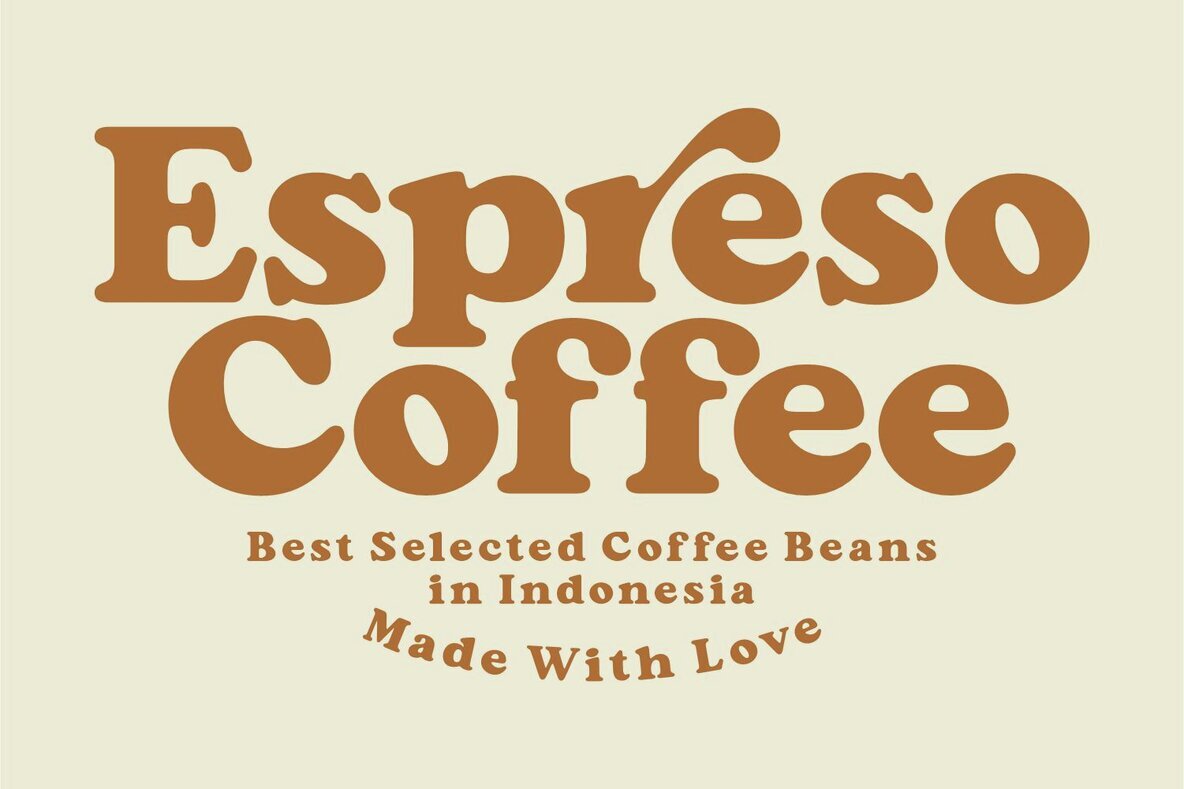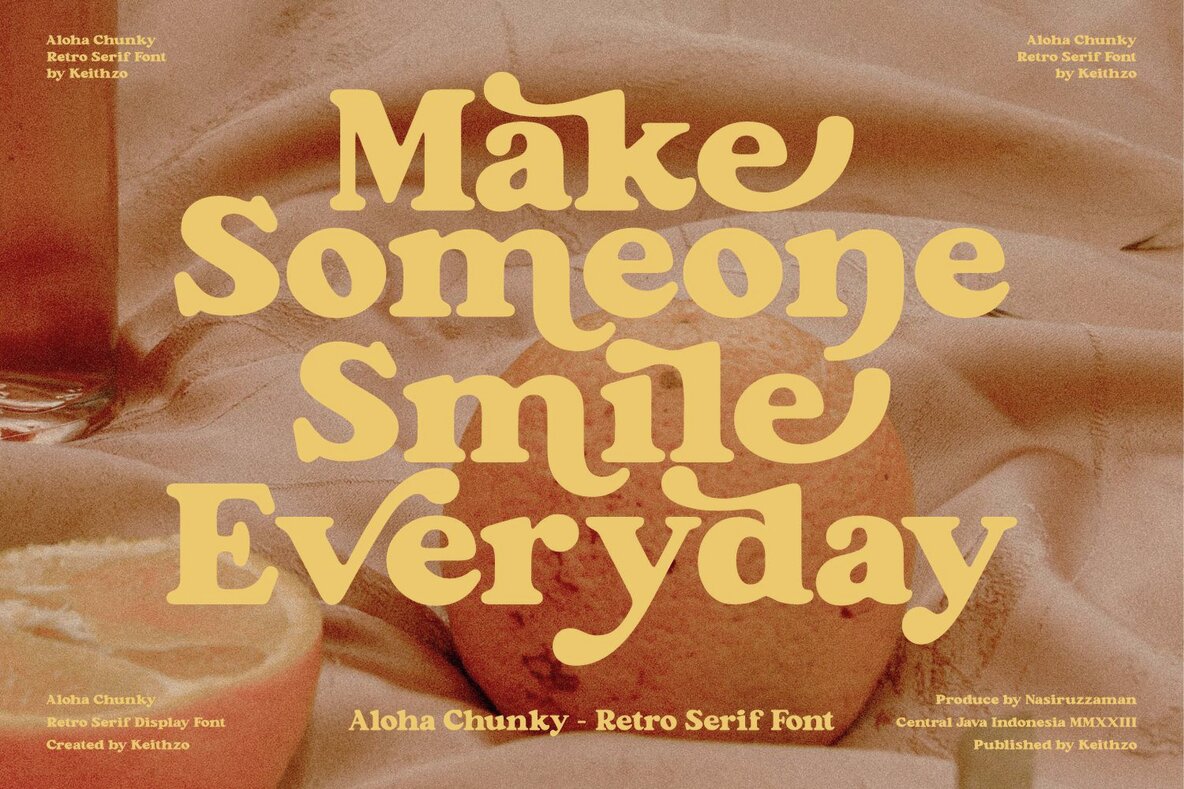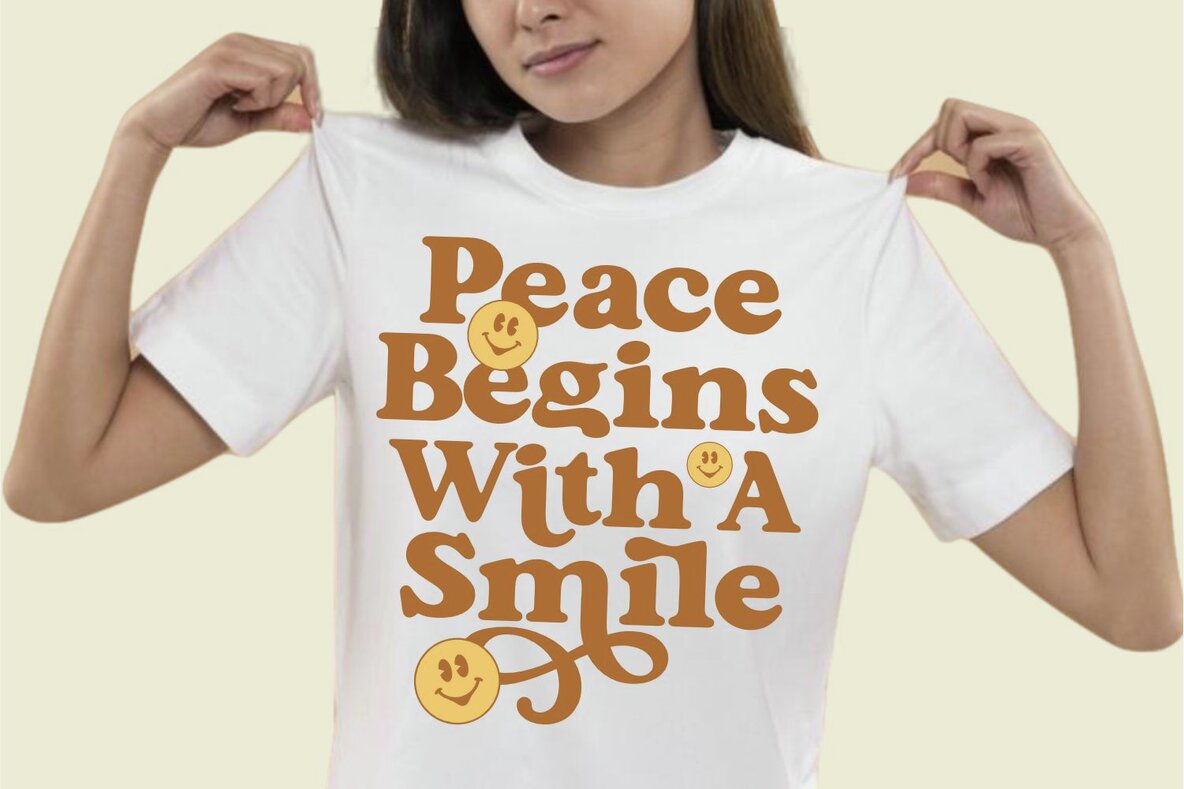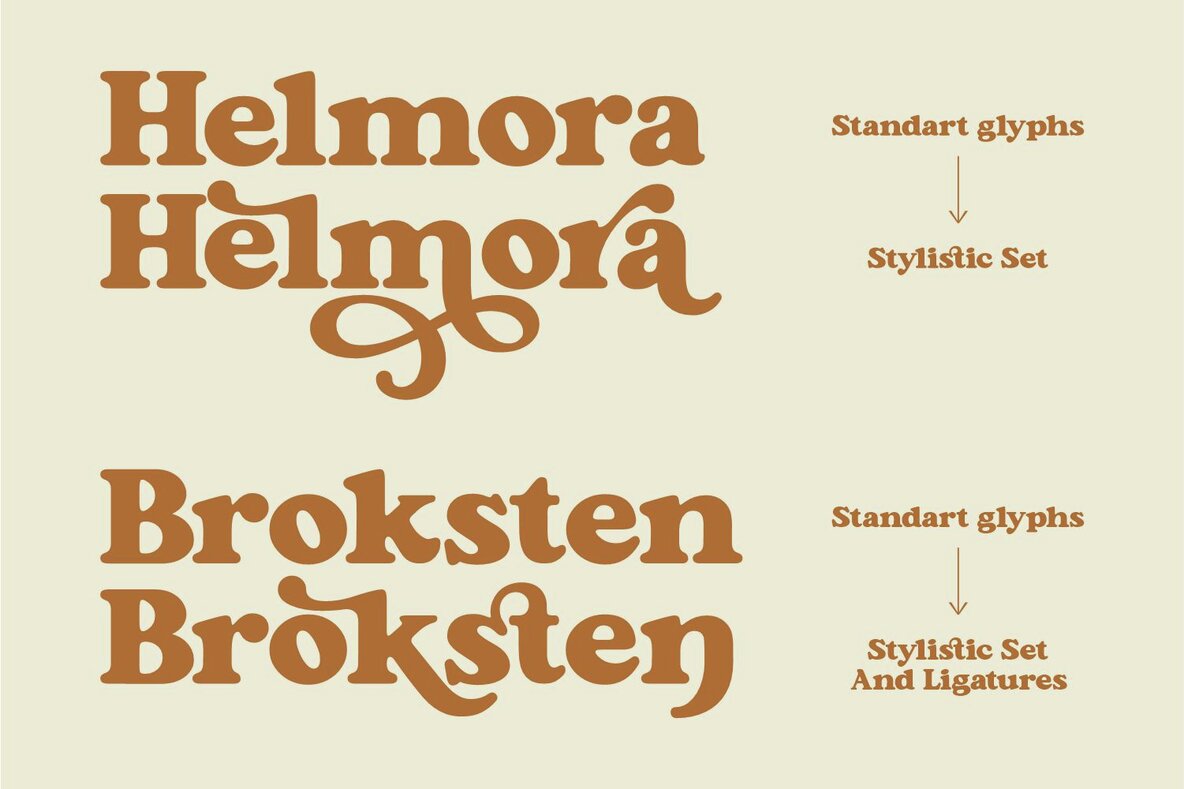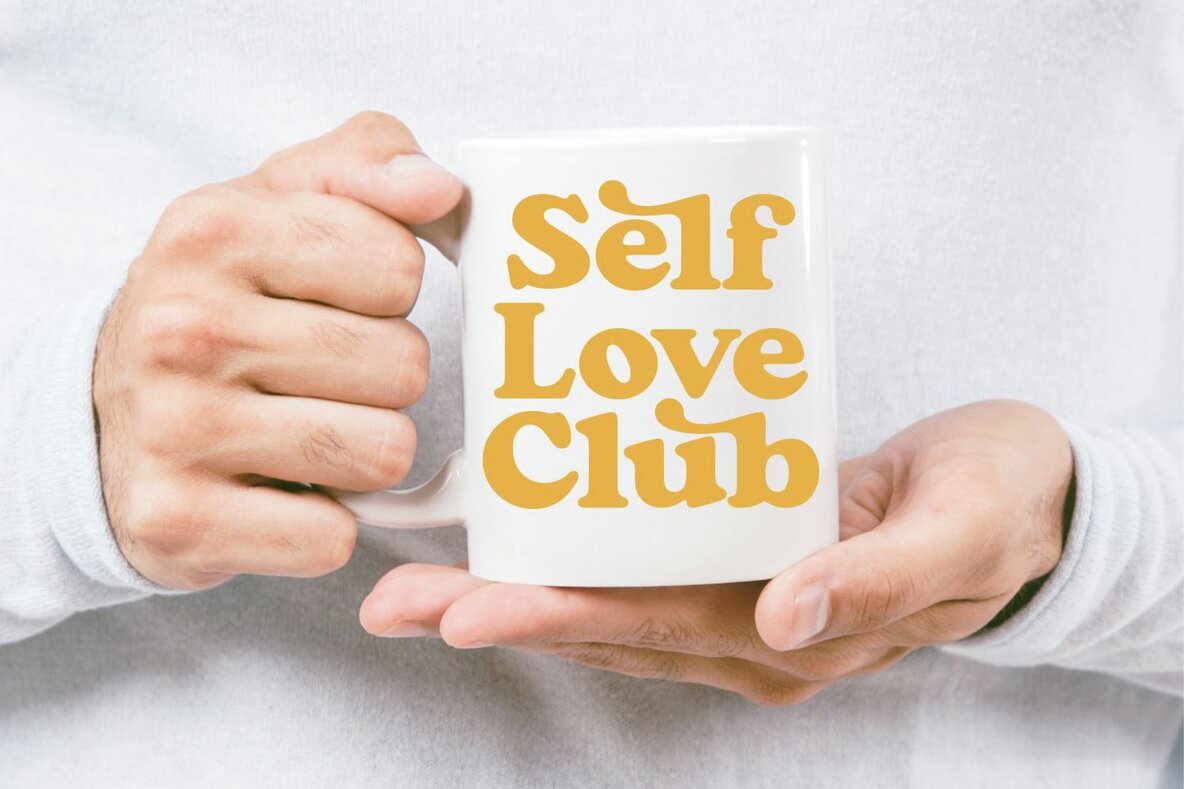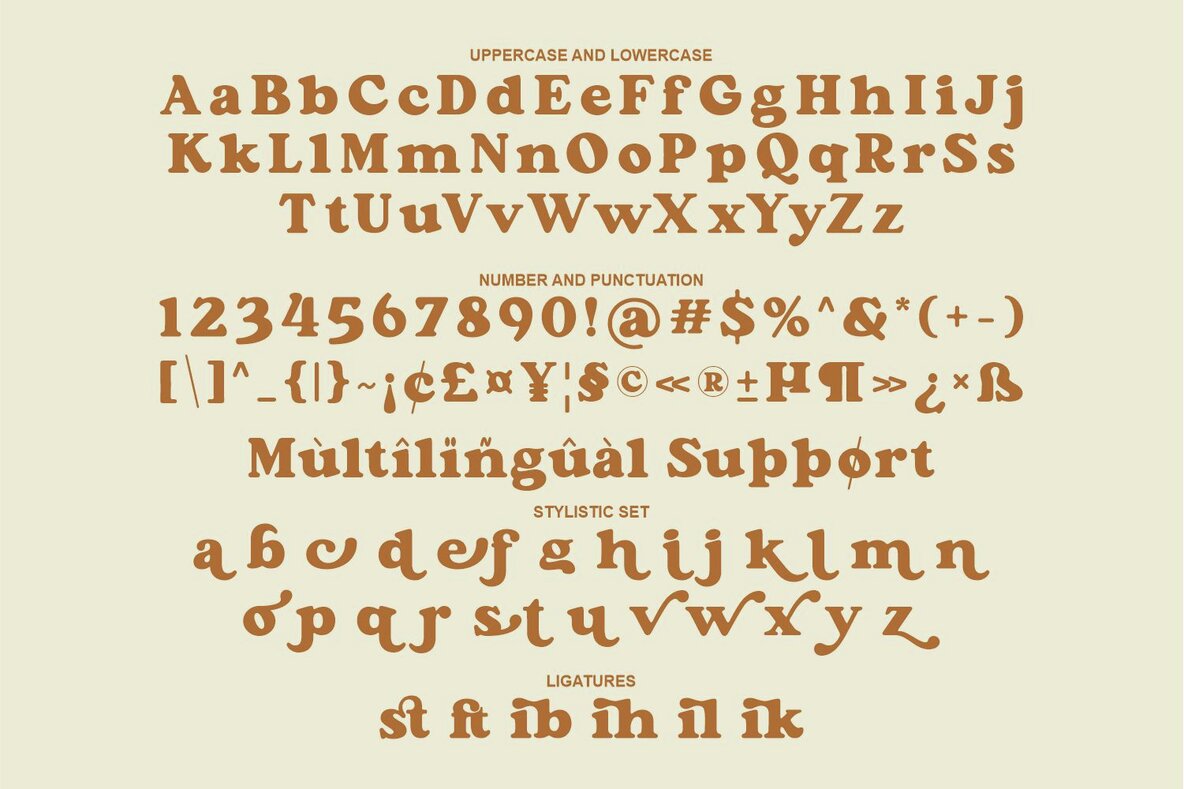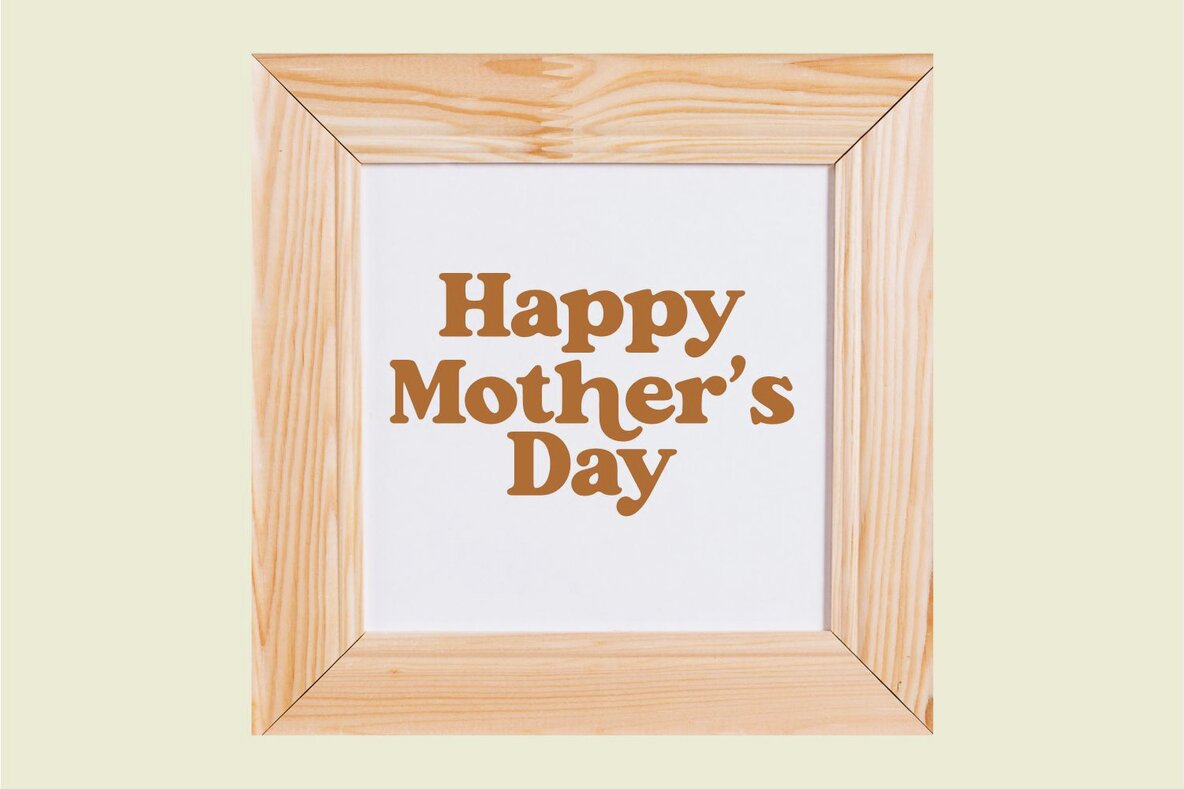
Aloha Chunky Font
Aloha Chunky
Aloha Chunky is a retro, groovy serif font that oozes a 1970s vibe. This font features chunky letterforms with thick serifs and rounded edges, reminiscent of vintage lettering. It is perfect for creating retro designs, such as posters, album covers, and branding materials. The playful and fun aesthetic of Aloha Chunky will add a touch of nostalgia and personality to any project.